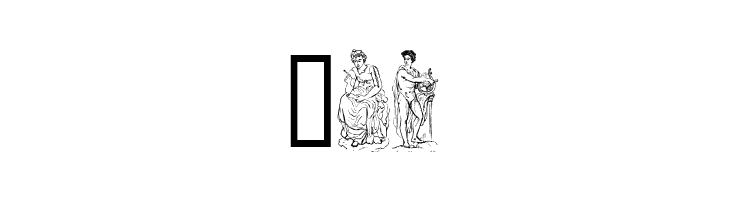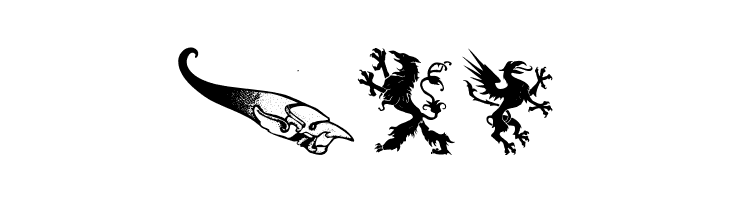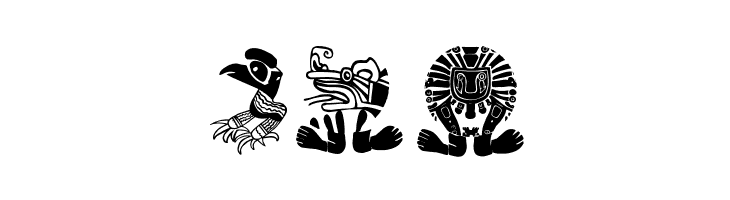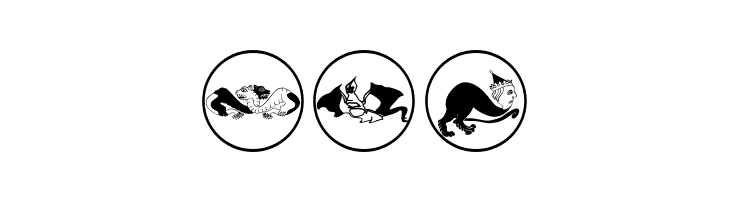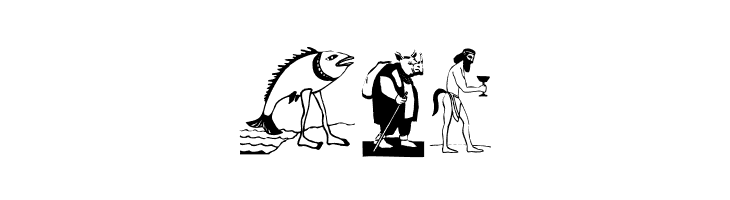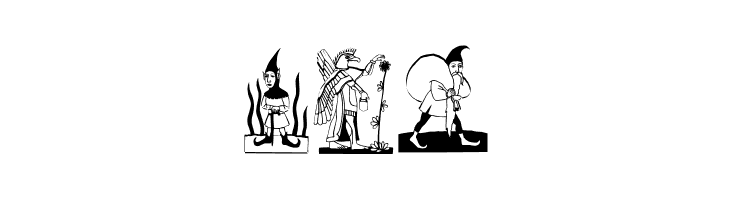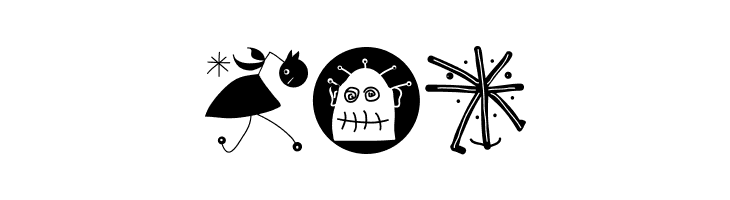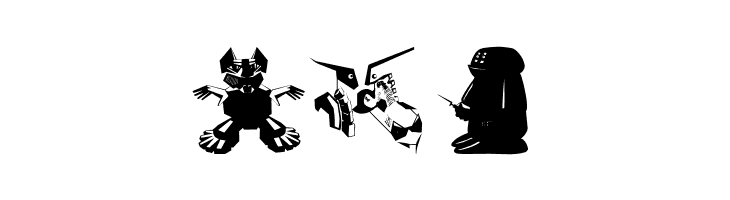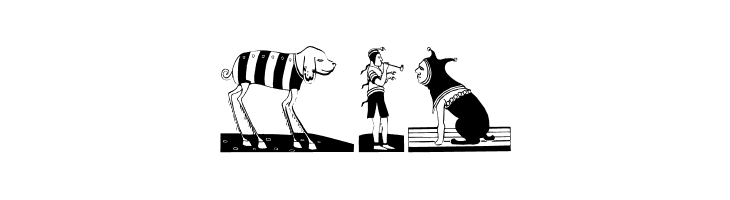
• MyMaestroMrMiro
A playful, abstract, and illustrative decorative font with quirky, hand-drawn characters.
• MyPrivateZoo
A decorative font with intricate, abstract animal designs inspired by tribal art.
• MyRobots
A decorative display font featuring robot-themed letterforms.
• Mythical
Whimsical, illustrated font with mythical creatures in circles.
• MythologicalArts
Ornate, illustrative font with mythological figures as glyphs.
• MythologicalBats
Mythology-themed decorative font with illustrated characters.
• MythologicalFantasy
A decorative font featuring detailed mythological and fantasy-themed illustrations.
• MythologicalSquares
Illustrative, mythological-themed display font with each character in a square frame.
• MythologicBats
A collection of mythological creature illustrations in place of traditional font characters.
• mythology one
Illustrative font with mythological figures as glyphs.